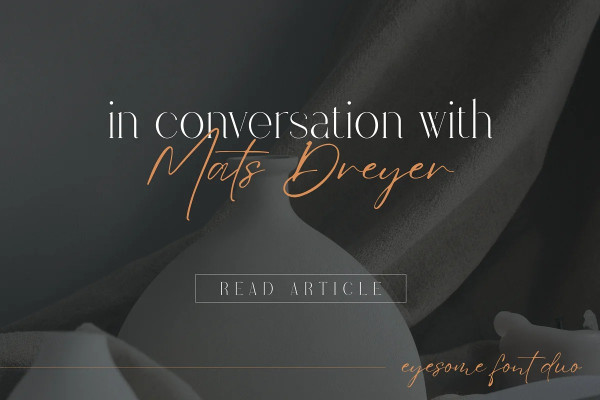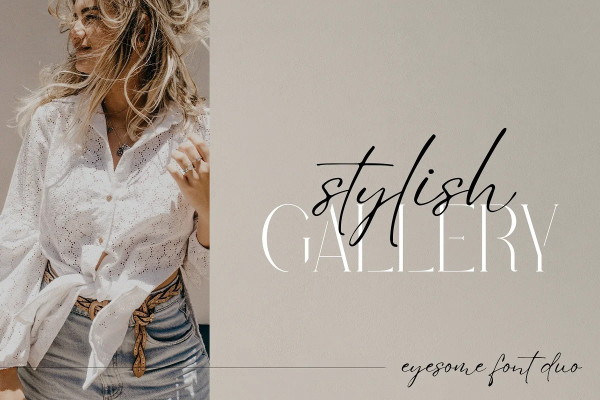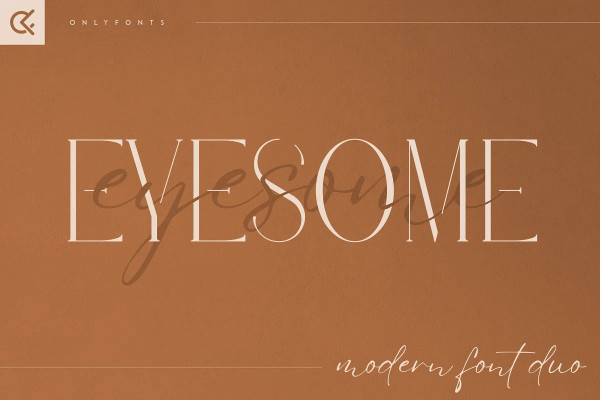
Eyesome Font Duo
Eyesome Font – Modern Font Duo, is elegant and organic typeface with multilingual support. It’s a very versatile font that works great in large and small sizes.
Eyesome is perfect for branding projects, home-ware designs, product packaging, magazine headers – or simply as a stylish text overlay to any background image.